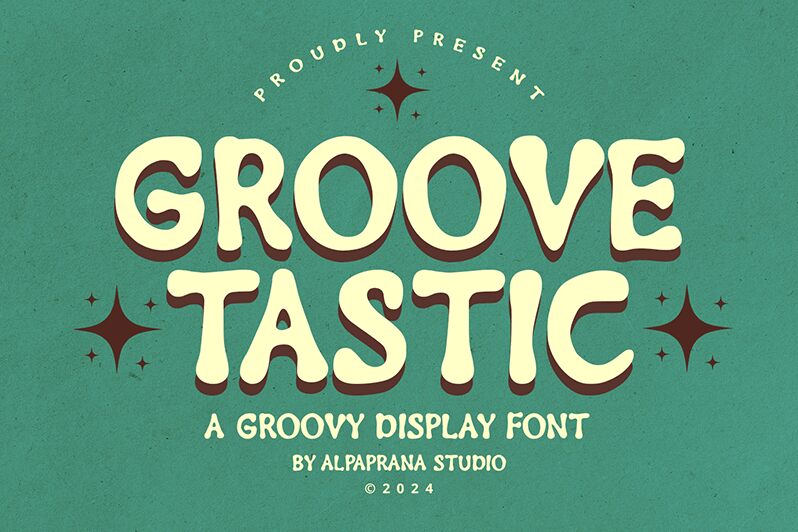
Groovetastic font family by Alpaprana Studio is a free retro-inspired font with a groovy and whimsical look. It is dynamic, bold, and energetic, making this typeface capable of adding an extra edge to the display text it presents. Its playful curves are nostalgic, fun, and characteristic of a font with a vintage appeal. Visualize its vibrant personality in two font styles that give this lighthearted aura a little spice!
Use Groovetastic in album cover art, music posters and flyers, branding and packaging design, or editorial layouts in magazine headlines. Its display excess makes it suitable for website designs, apps, and games for kids. It’s perfect for product labels, movie titles, or even as a logotype when adapted correctly.